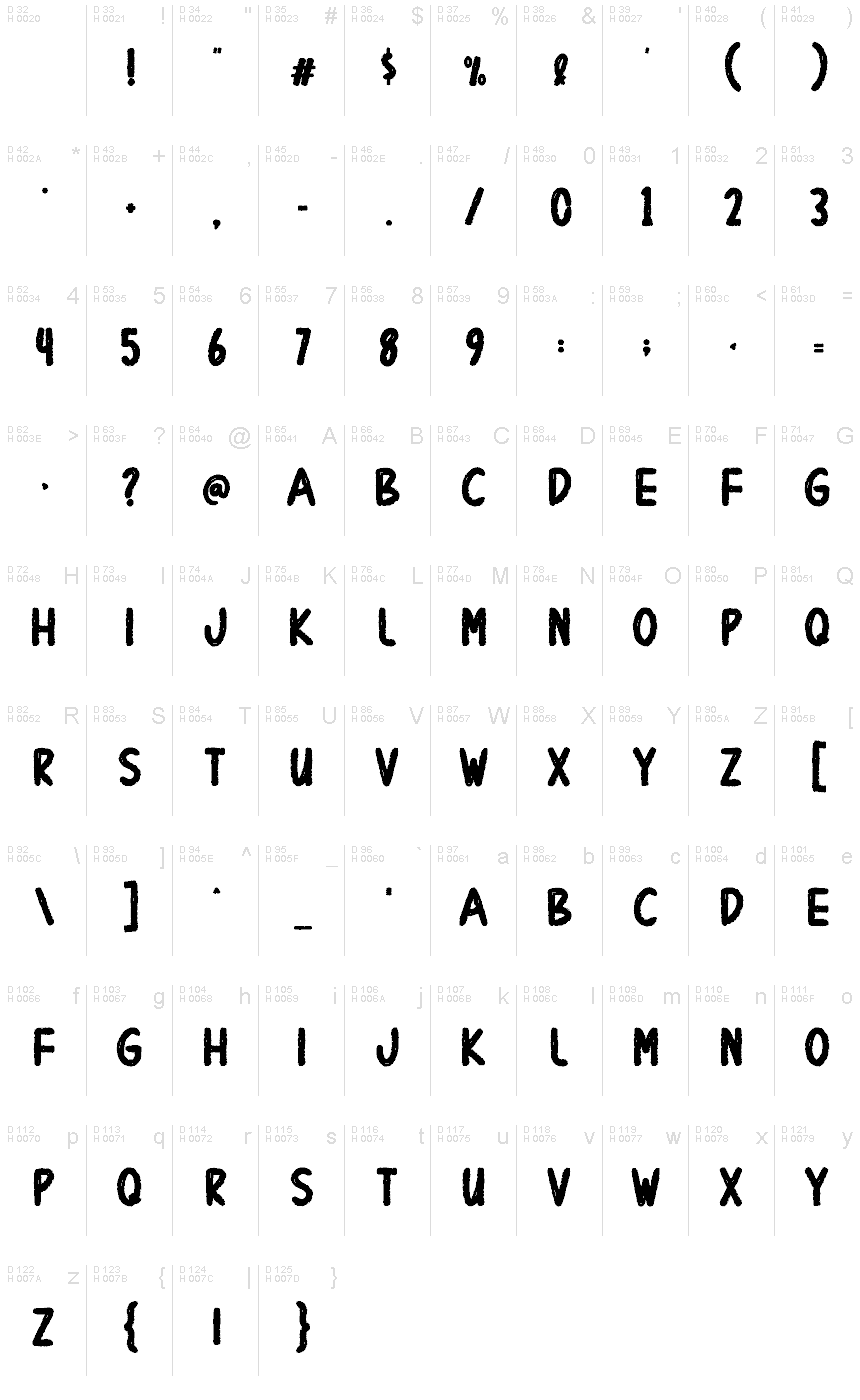
Death Fire
Death Fire font is a free brush font with a grunge texture, distressed appearance, and urban feel. Designed by Scratchones, it’s characterized by its controversial designed letters that are completed with underlines as if written by a brush pen. The font looks highly intense as satisfying rough aesthetics rise from them directly into the viewer’s experience.
Those characteristics make Death Fire capable of adding this intensity to posters of different themes including events and products, a streetwear brand logo or label, apparel items such as sweatshirts or t-shirts, magazine covers, brochures’ front pages, invitation cards to scary-themed events such as Halloween parties or festivals.